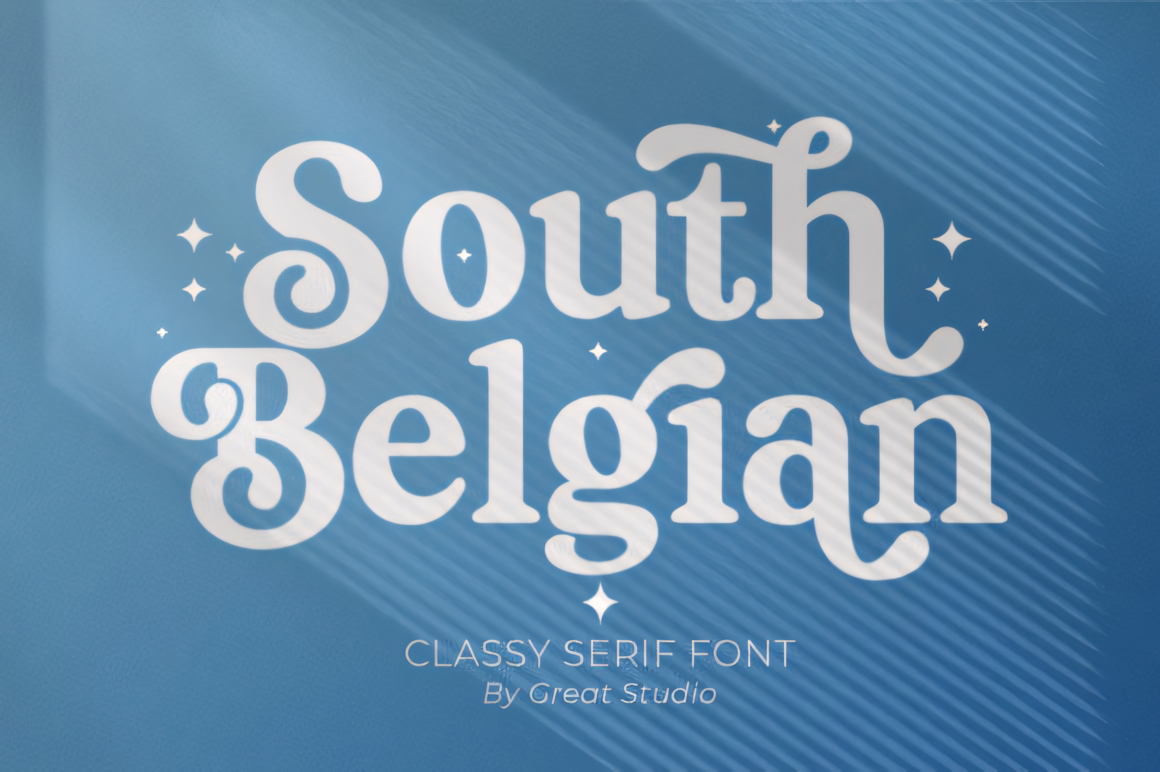
South Belgian is a vintage serif font, which has a very soft type, and come in a modern and classy packaging, and from which you can get your OpenType features to choose from an assortment of alternate characters, and among them letters, and ligatures which you prefer out of the many sets of uppercase and lowercase letters that are available to make the text or title look luxurious and rich.
South Belgian is suitable for Logo Designing, Clothing Branding, Packaging Designing, Magazine Headings, Advertising, T-Shirts, Postcard Designs and a host of other branding endeavors.
South Belgian Font Serif